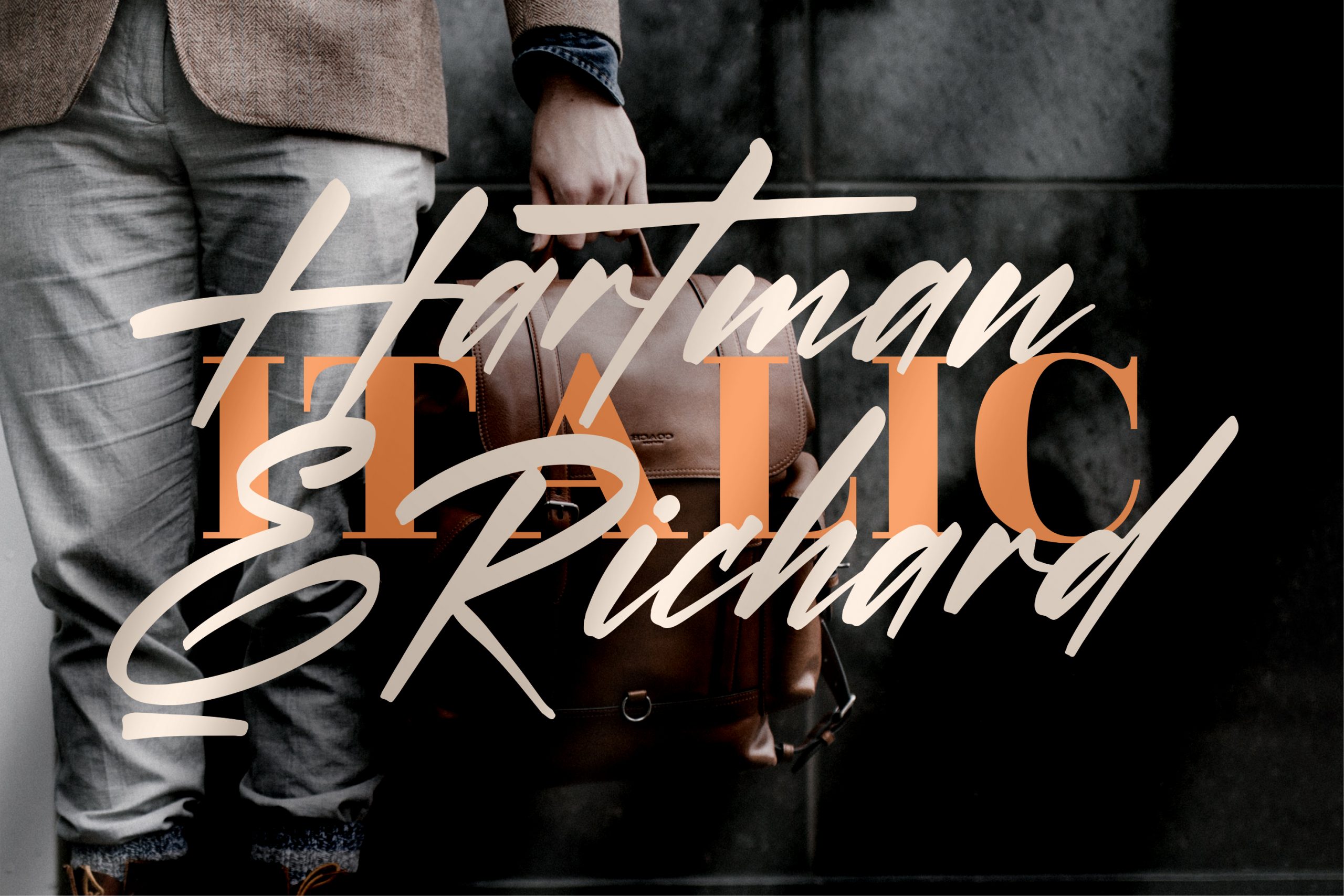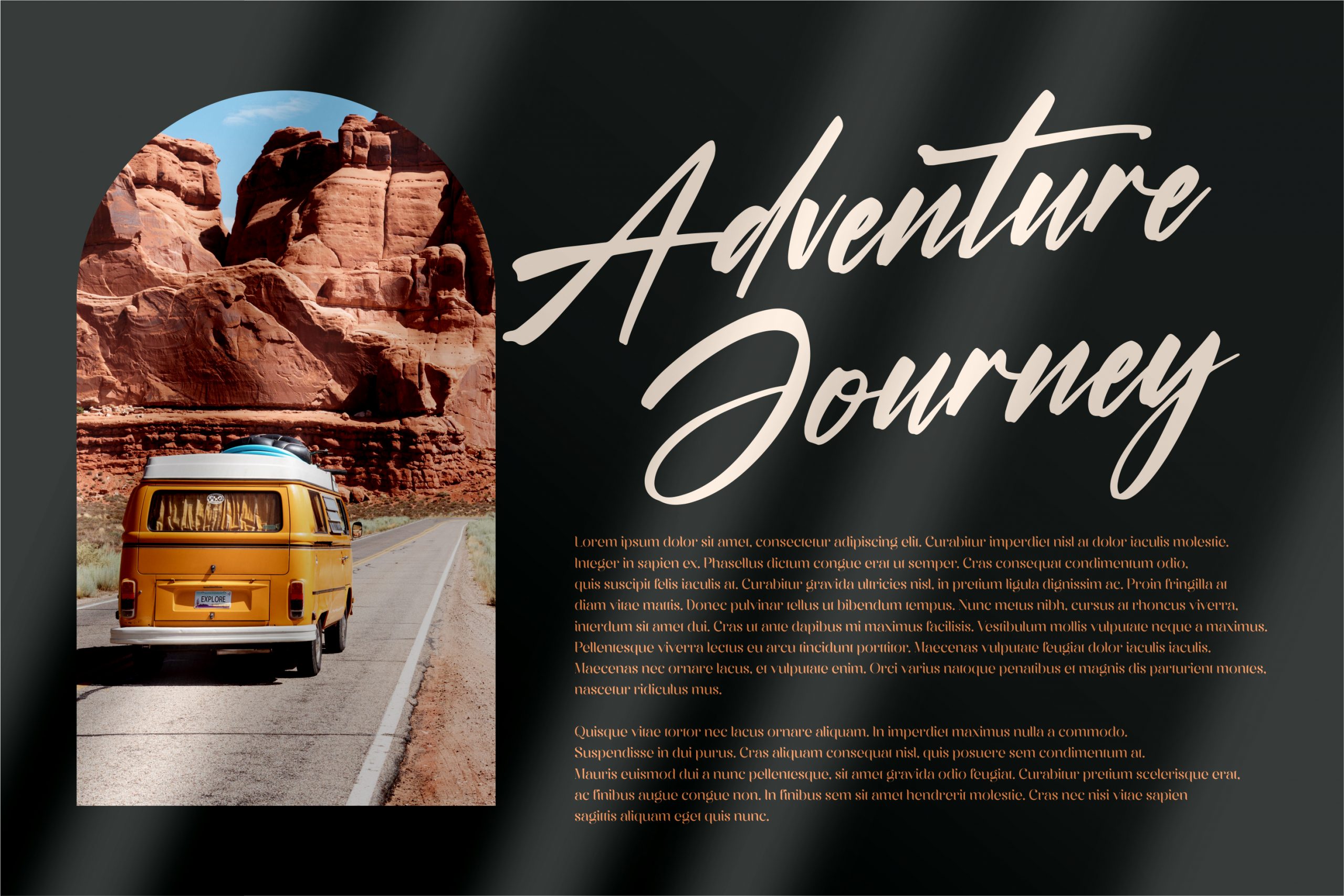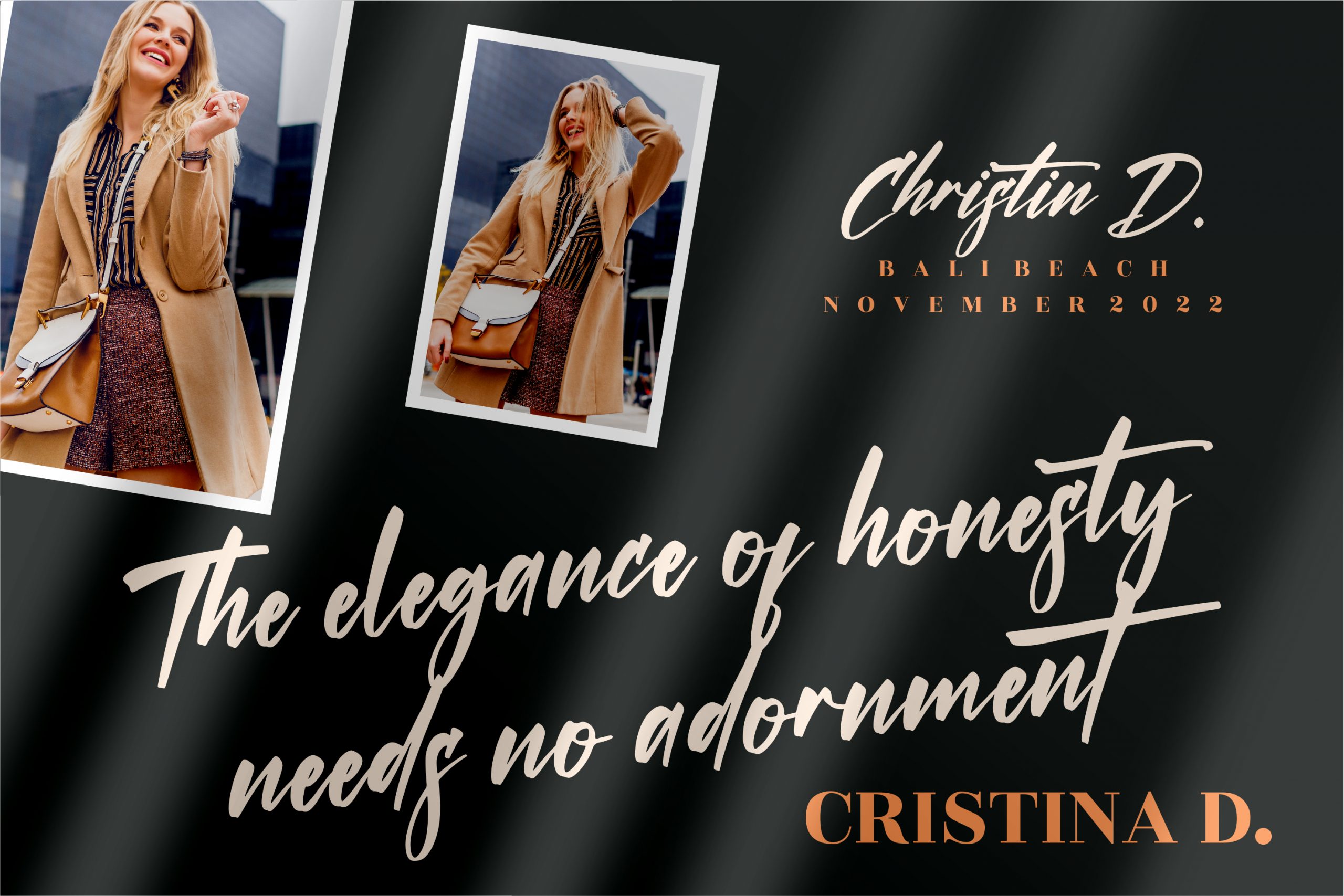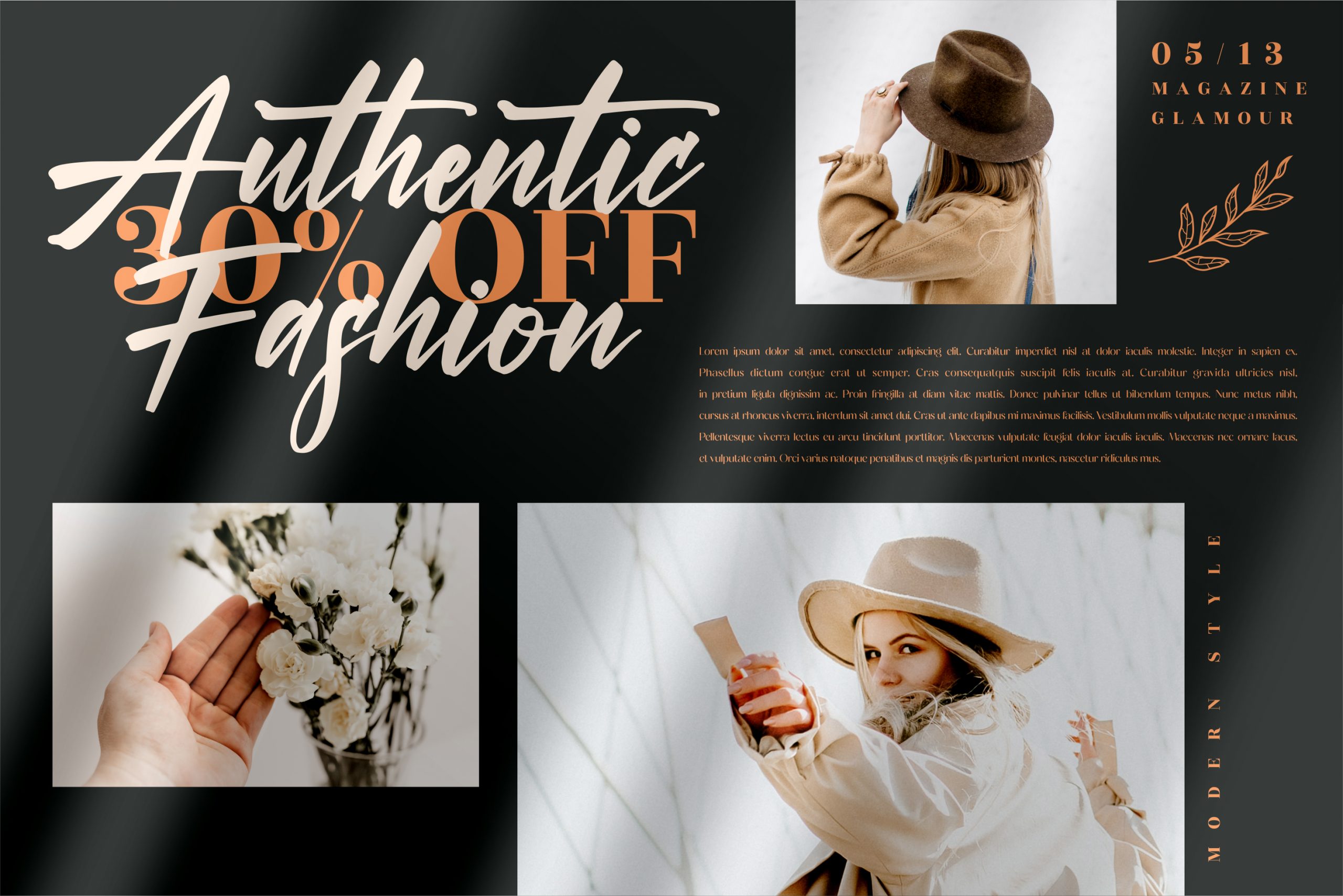
Hartman & Richard Font
Hartman & Richard Font – Modern Calligraphy Font, from Perspectype Studio, is a premium signature font, suitable for any projects such as: logos, branding projects, homeware designs, product packaging, mugs, quotes, posters, shopping bags, t-shirts, book covers, name card, invitation cards, greeting cards, label, photography, watermark, special events, and all your other luxury projects that need a premium signature taste.